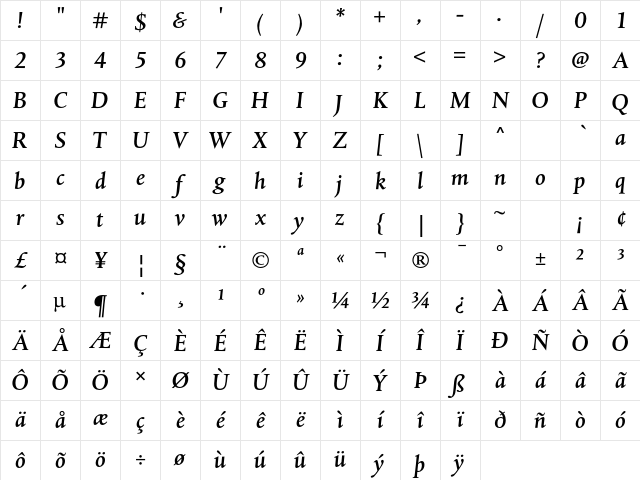
DTL Albertina T Medium Italic
Style: T Medium Italic
Complete DTL Albertina T Medium Italic glyph index. Displaying only characters natively supported by DTL Albertina T Medium Italic font.
Design Context for DTL Albertina
DTL Albertina is a composed and adaptable typeface that performs quietly and consistently across a wide range of design contexts. The slanted form adds forward momentum and visual energy.
Pro Tip: Use DTL Albertina for emphasis, pull quotes, and subheadings where its slanted energy can add rhythm to the layout.
Who designed the DTL Albertina T Medium Italic font?
This font was published by Version . / created on - - /Copr. by Dutch Type Library/URW. Check the technical specs section for copyright and designer details.